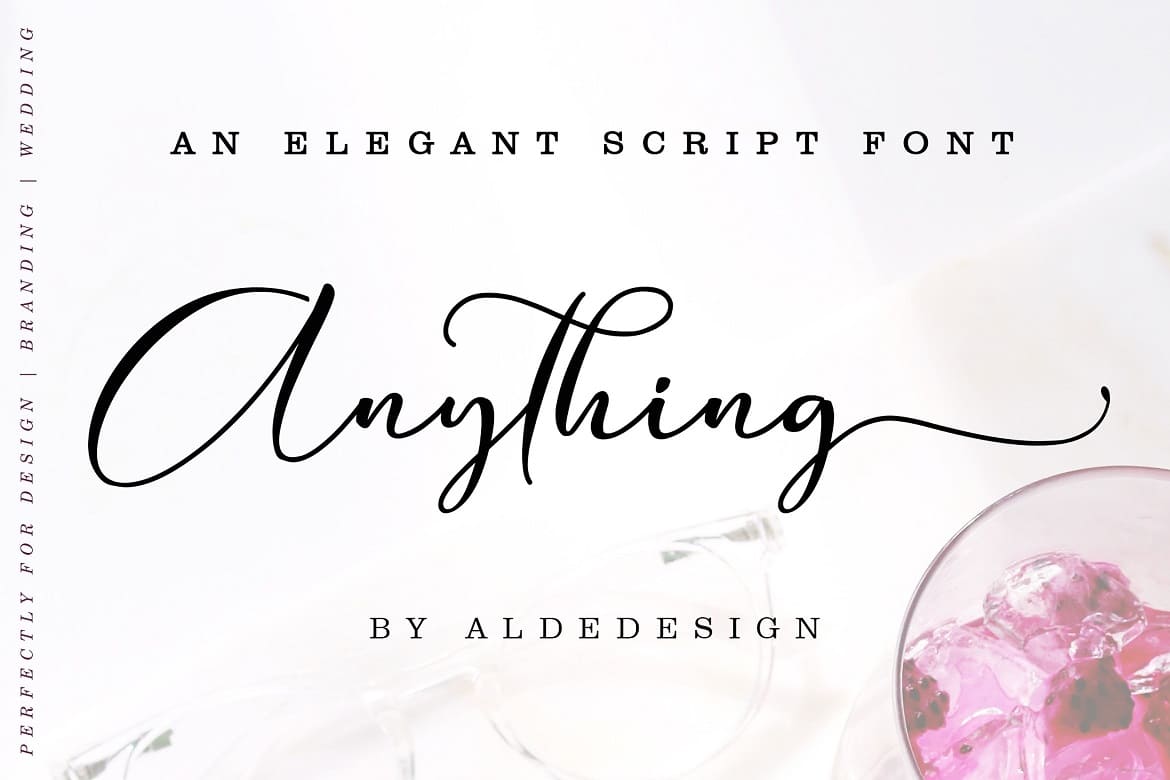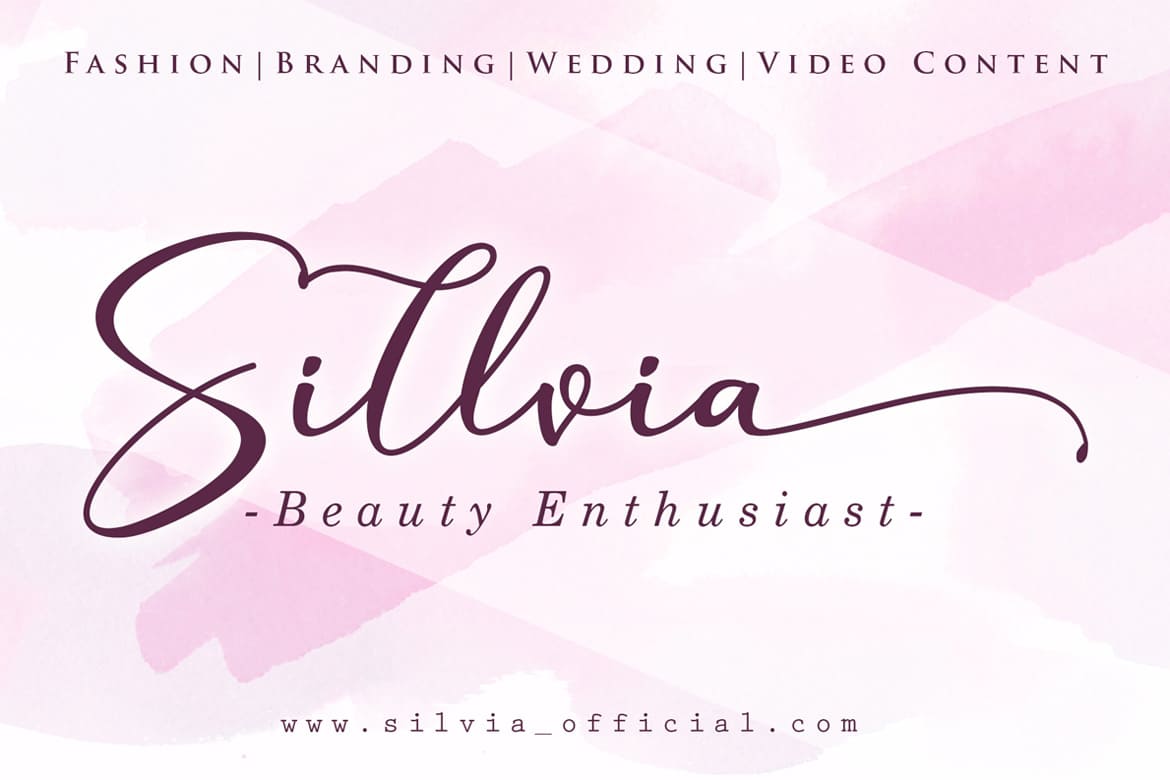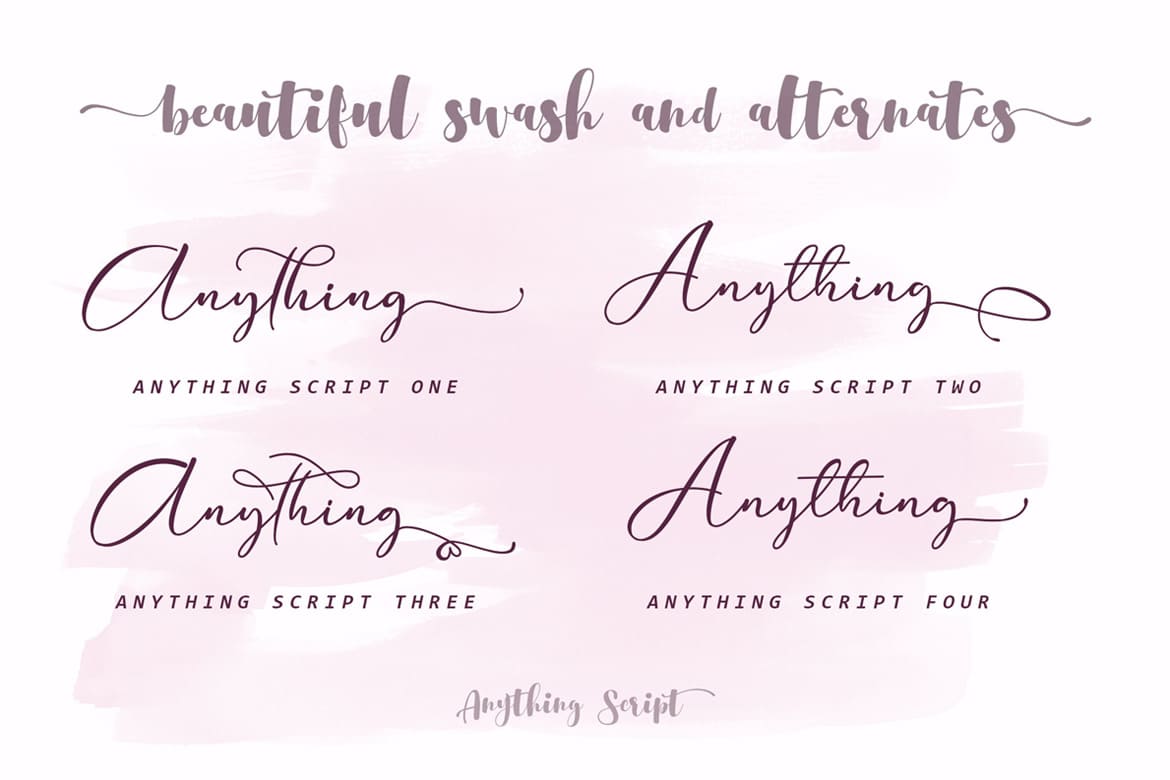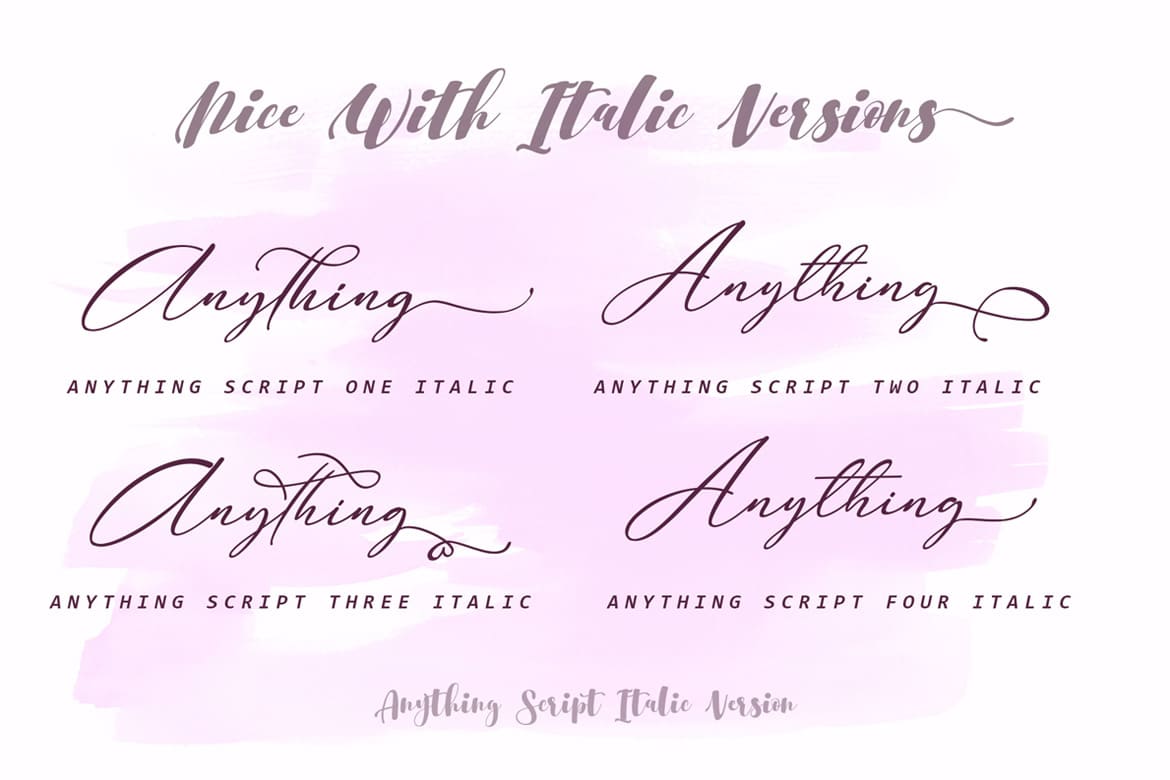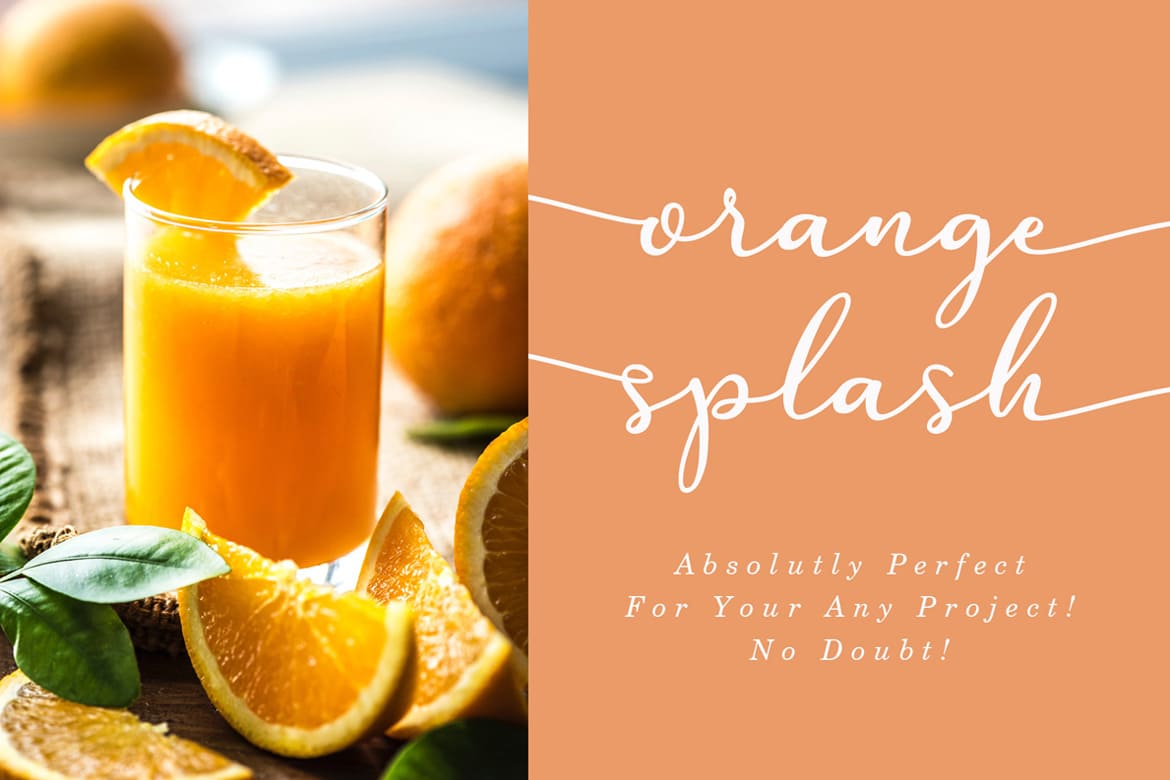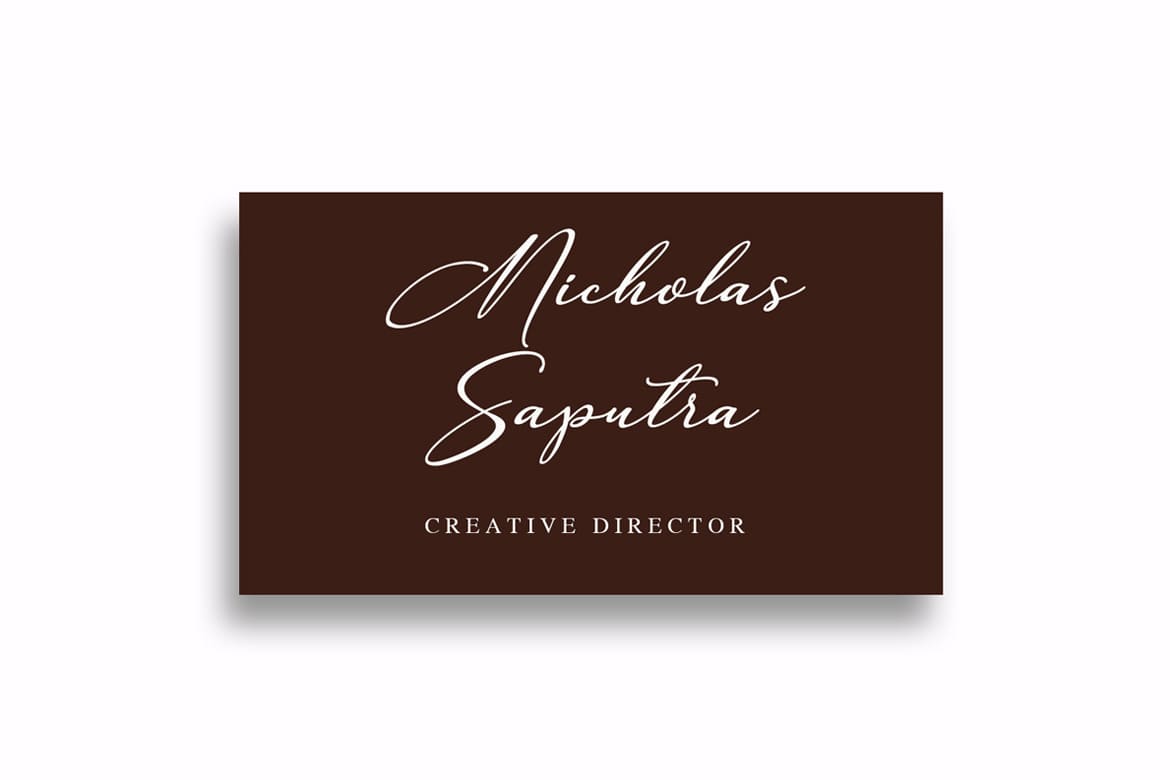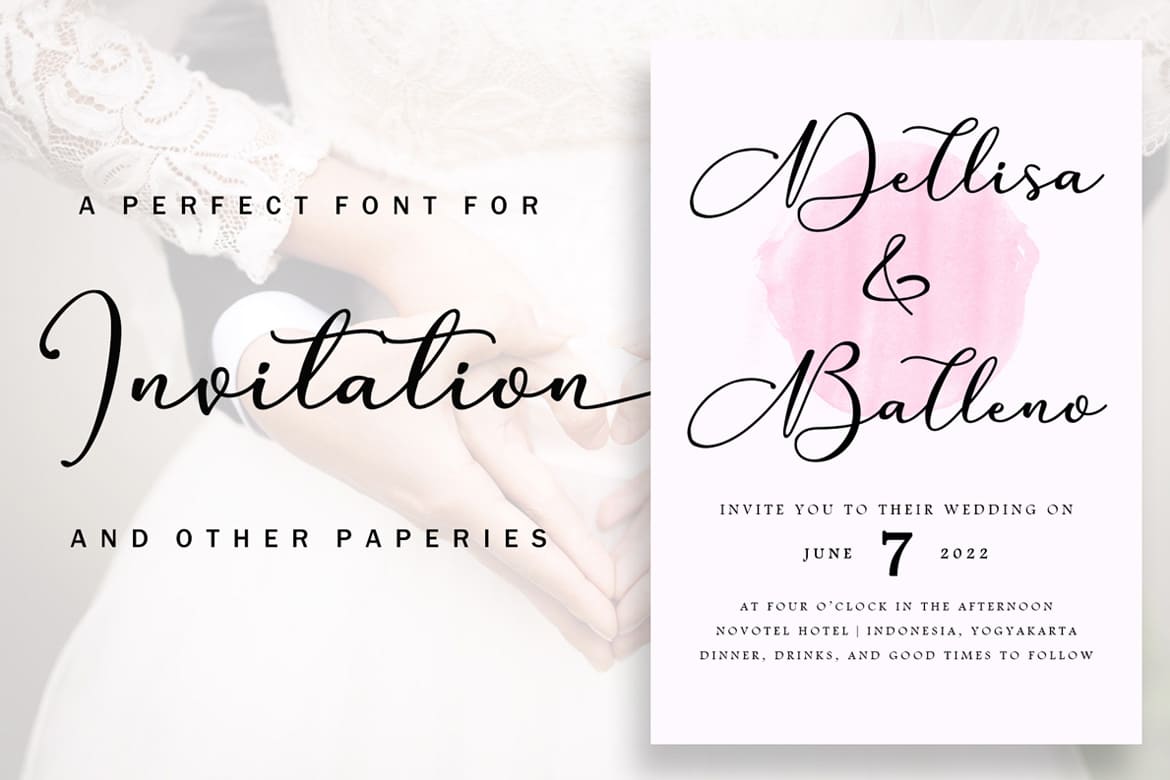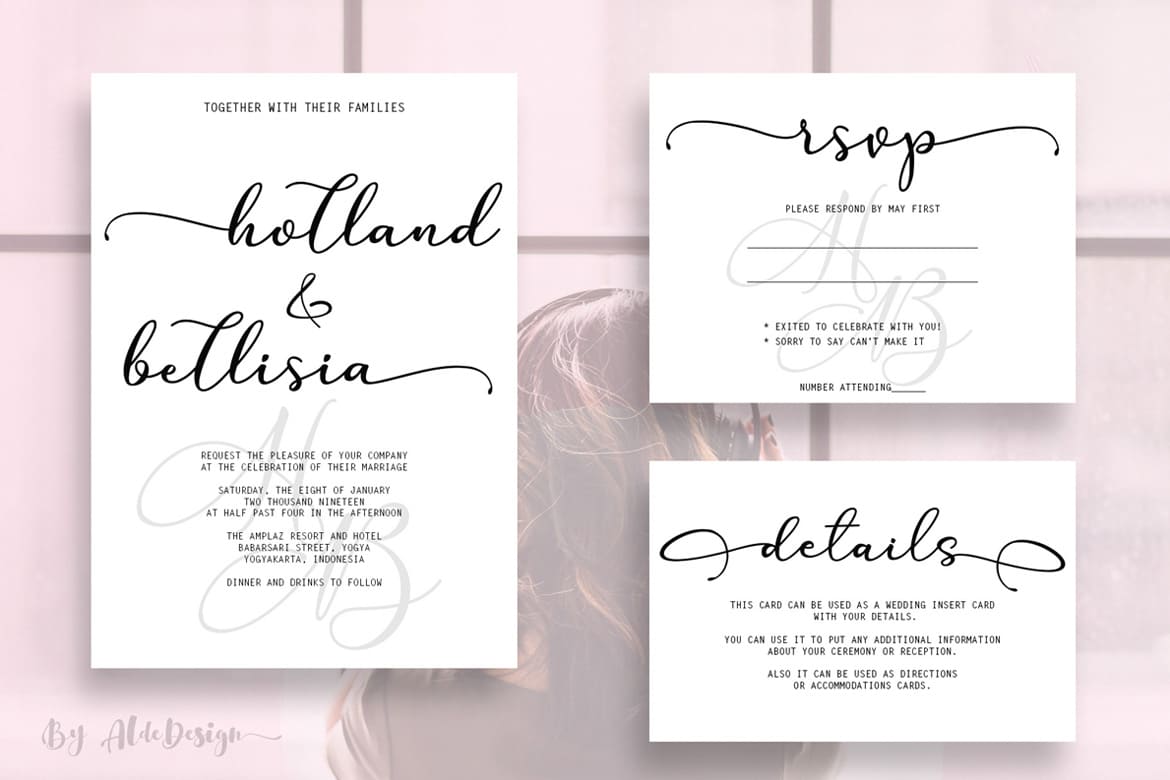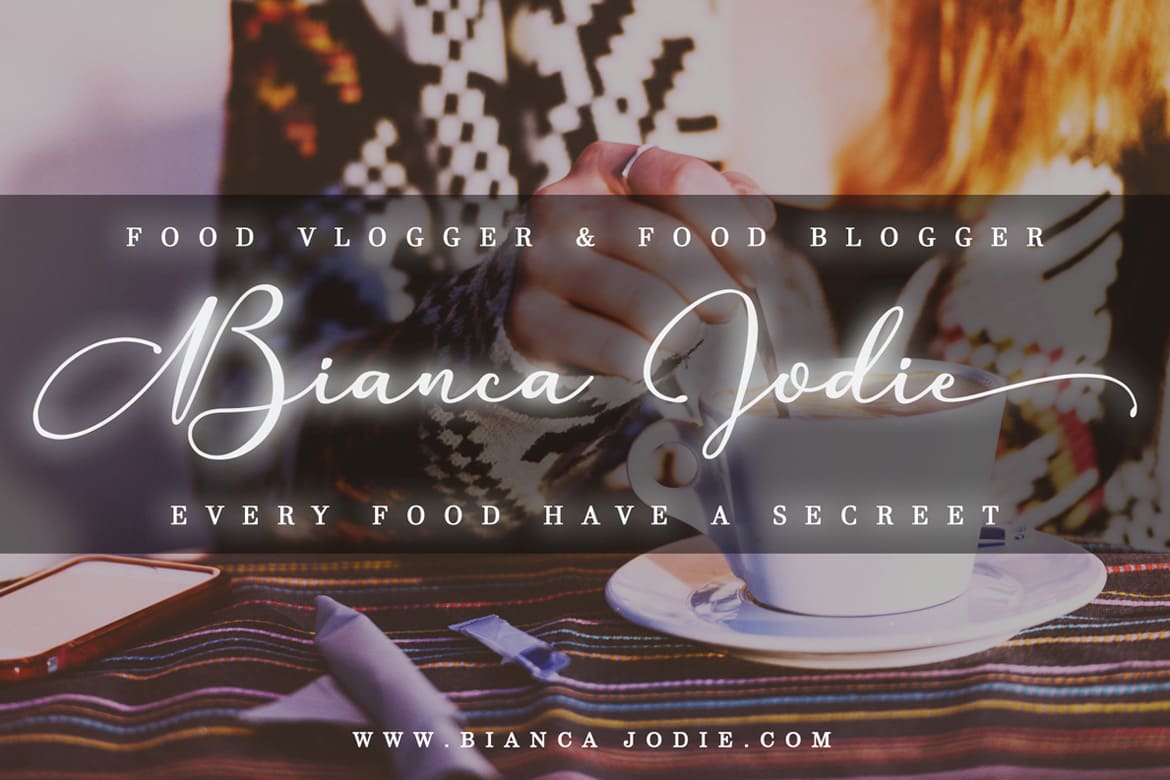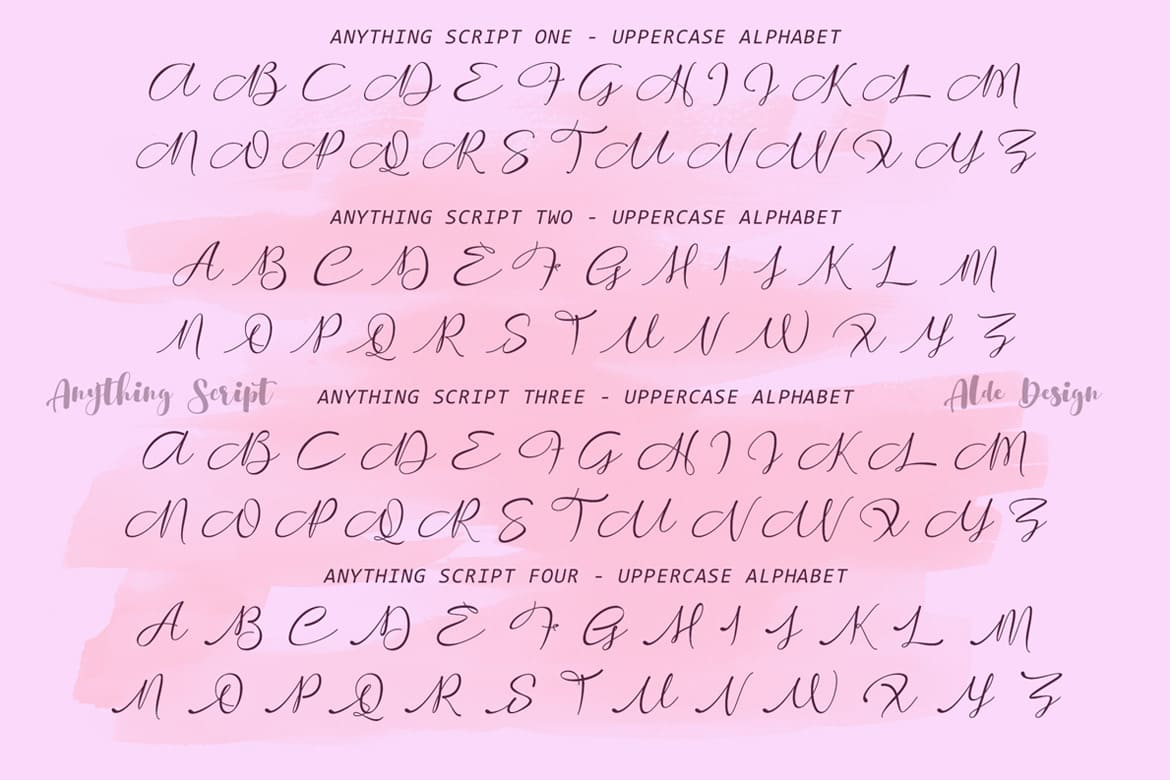
Anything Script is a beautiful and elegant script font containing many different swashes and alternates. It comes with 4 different styles and 4 matching italics and is perfect for any of your design projects.
AldeDesign was founded by Alde Joox in Indonesia, Yogyakarta. AldeDesign specializes in affordable scripts from very casual to very elegant. The design group is obsessed with product quality, beauty, and application. The fonts are perfectly suited for headlines, invitations, fashion, and packaging design.